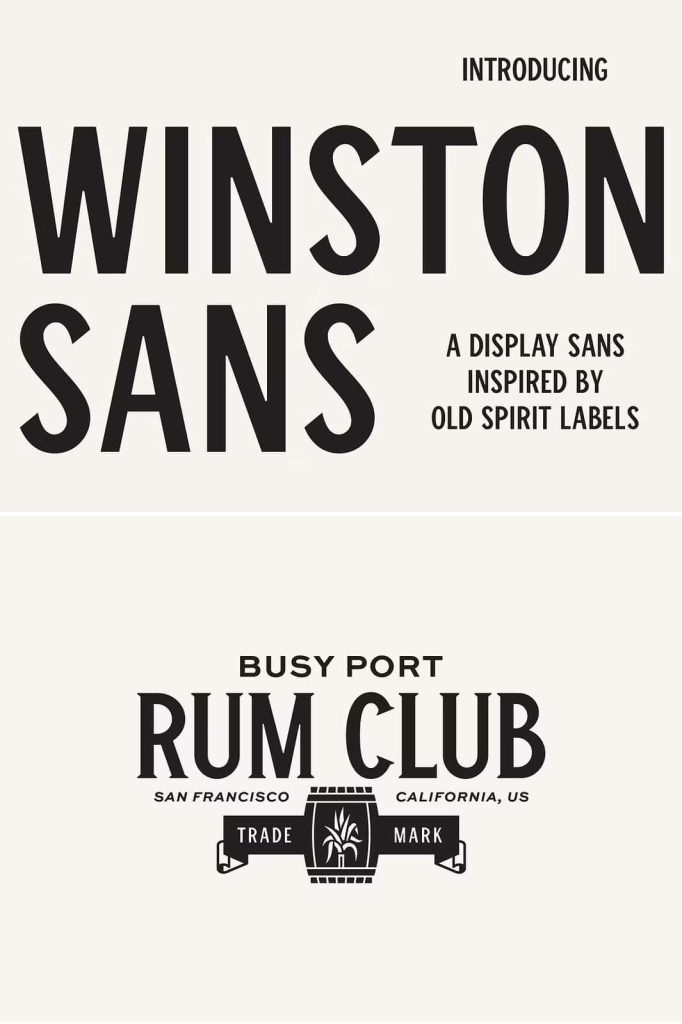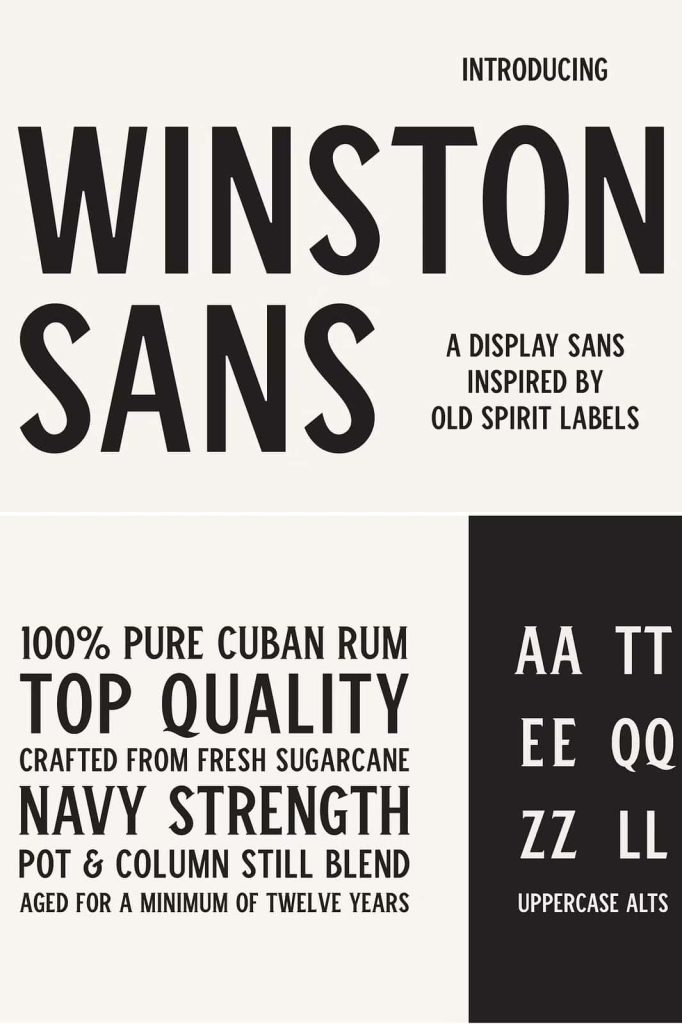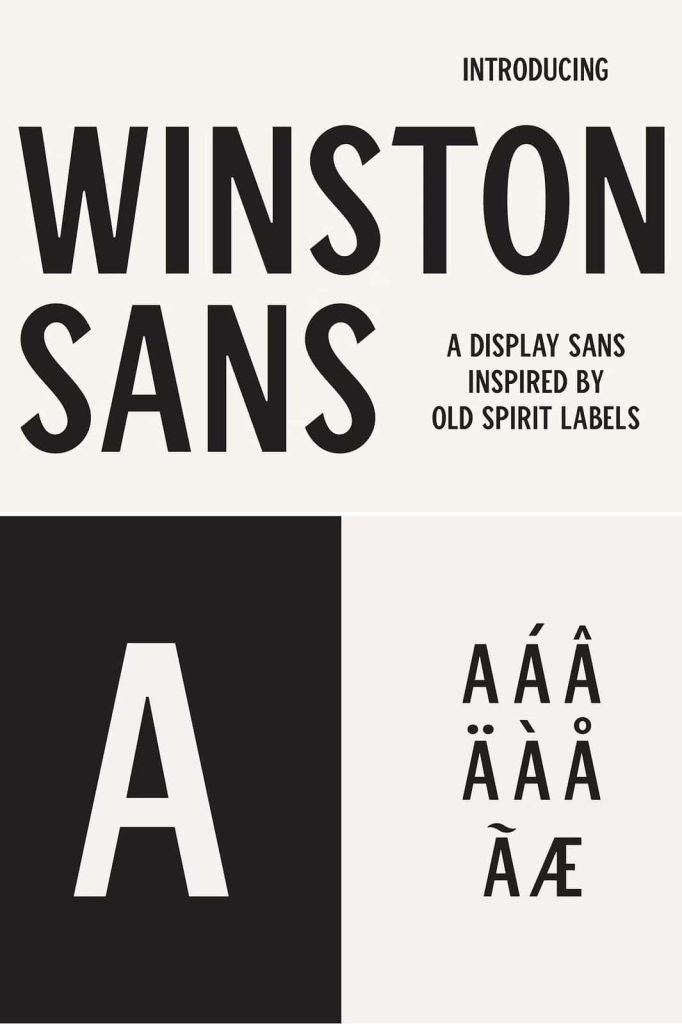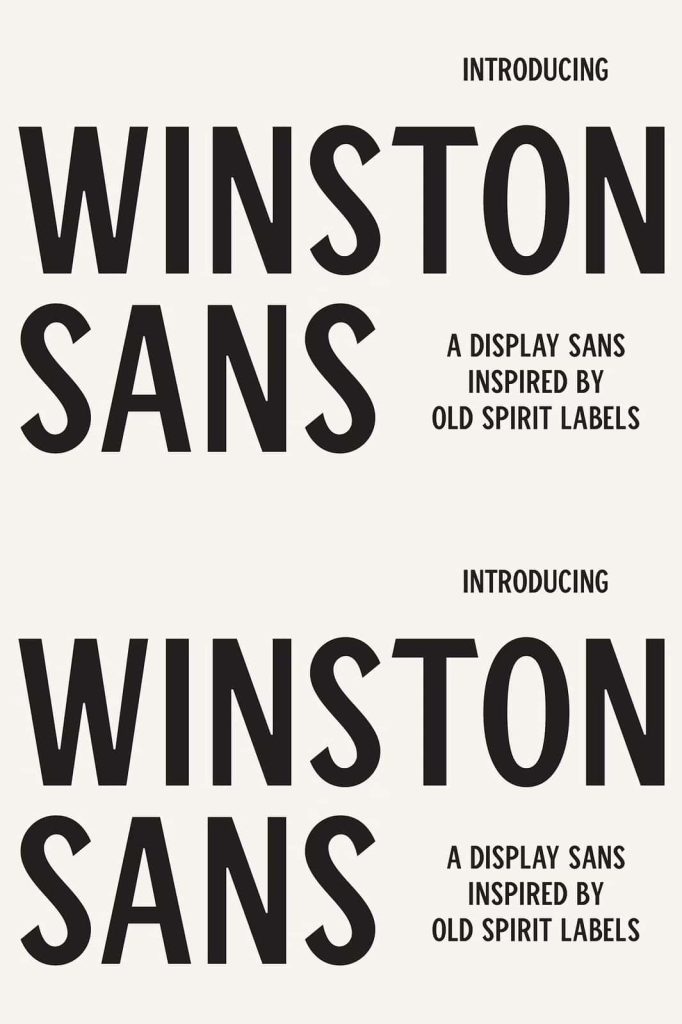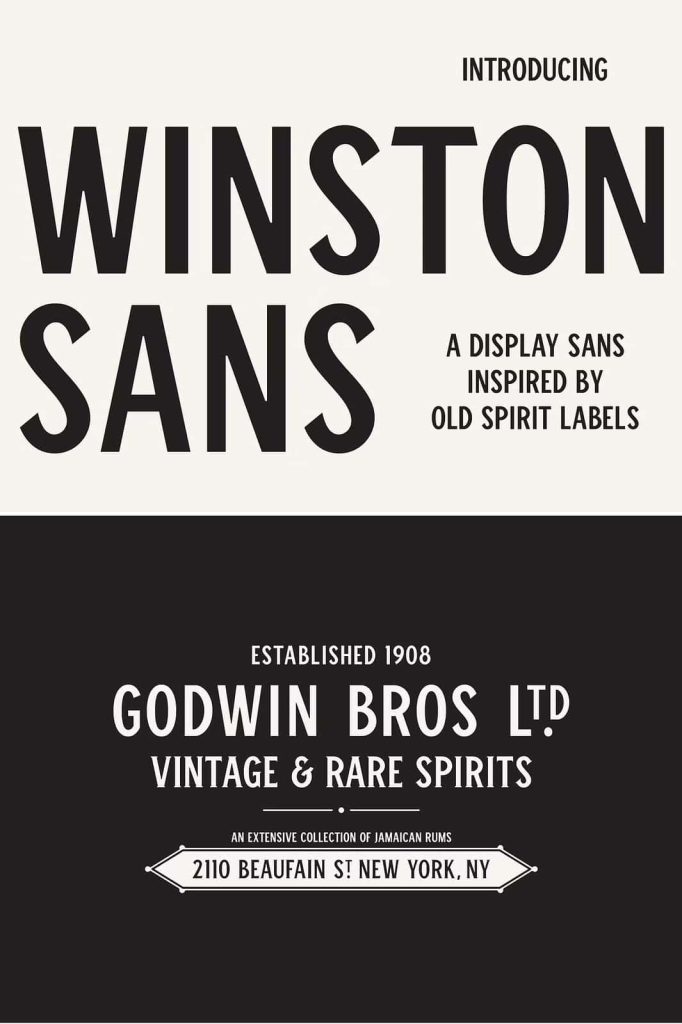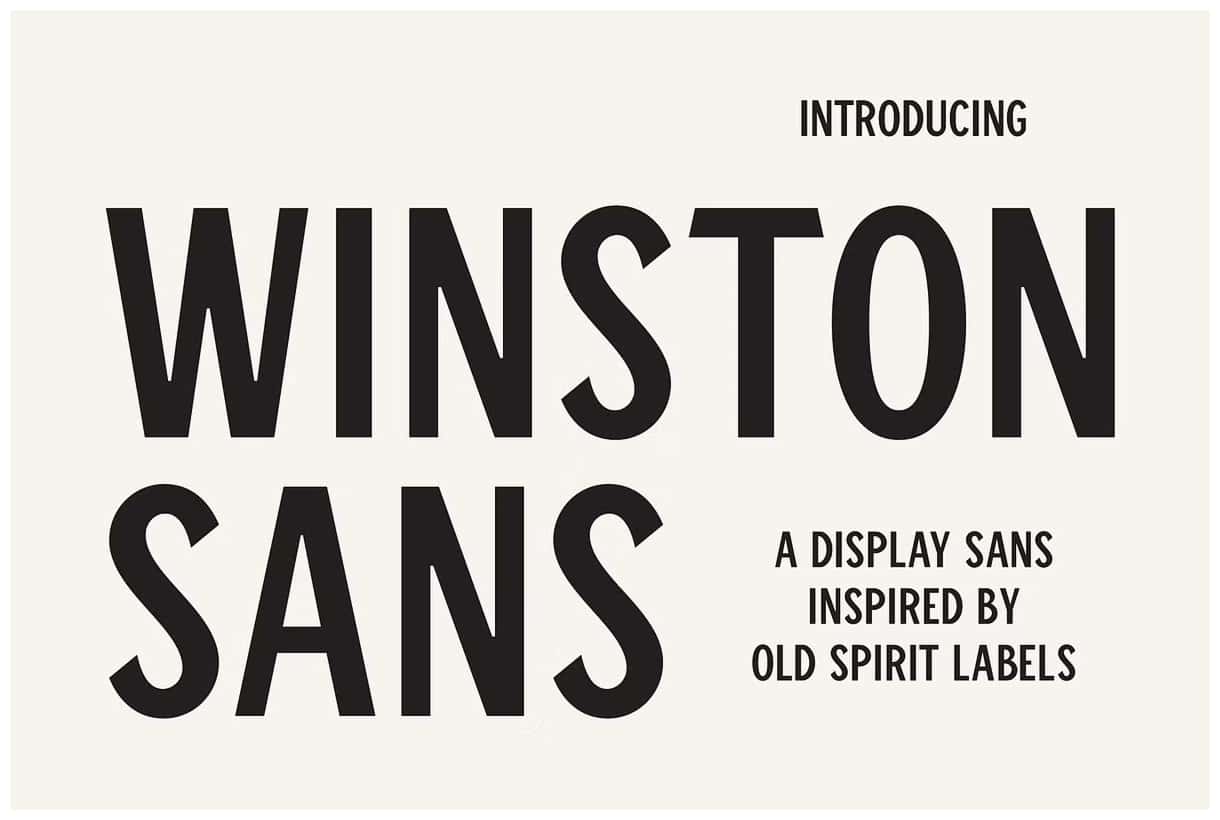
Winston Sans: A Vintage-Inspired Font Family with a Modern Edge
Winston Sans is a distinctive font family inspired by classic spirits labels and heritage packaging design. It blends old-world charm with modern typographic precision, creating a unique balance between nostalgia and contemporary clarity. This thoughtful combination allows Winston Sans to feel timeless while remaining highly relevant for modern creative projects.
Rooted in the visual language of traditional labels, signage, and handcrafted typography, Winston Sans captures the character and confidence of vintage design. At the same time, its clean construction and balanced proportions ensure excellent readability and flexibility across a wide range of applications. The result is a font family that feels authentic, bold, and adaptable.
Inspired by Heritage and Classic Label Design
The design of Winston Sans draws strong inspiration from old spirits labels, where typography played a central role in communicating quality, tradition, and trust. These historical references give the font its distinctive personality while reinforcing its premium feel.
Vintage Roots with Refined Details
Winston Sans reflects the strength and character found in classic labeling and packaging from the past. Its letterforms echo the confidence of heritage brands while avoiding excessive ornamentation. This refined approach allows the font to feel vintage without appearing dated or overly decorative.
A Modern Interpretation of Timeless Style
While inspired by the past, Winston Sans is built for modern design workflows. Its clean lines, consistent spacing, and balanced structure make it easy to use across both print and digital platforms. This modern interpretation ensures the font performs reliably in contemporary branding and design systems.
A Versatile Font for Branding and Visual Identity
Winston Sans excels in brand identity projects where character and clarity are equally important. Its strong presence helps brands establish trust, authenticity, and recognition while maintaining a polished and professional appearance.
Strong Foundations for Brand Identity
Whether used in logos, wordmarks, or supporting brand elements, Winston Sans provides a solid typographic foundation. Its vintage-inspired tone communicates heritage and reliability, making it an excellent choice for brands that want to appear established, confident, and thoughtfully crafted.
Adaptable Across Multiple Brand Touchpoints
Winston Sans works seamlessly across a wide range of brand applications, including business cards, labels, signage, websites, and promotional materials. Its flexibility allows designers to maintain visual consistency while adapting the font to different contexts and scales.
Perfect for Packaging and Product Design
Packaging design is one of the strongest use cases for Winston Sans. Its label-inspired roots make it especially effective for products that rely on storytelling, heritage, and visual authenticity.
Ideal for Labels and Packaging Layouts
Winston Sans performs exceptionally well on packaging, where typography must be both expressive and legible. Its clean forms ensure readability at small sizes, while its character adds visual interest to product labels, boxes, and tags.
Enhancing Premium and Craft Products
The vintage-modern balance of Winston Sans makes it a natural fit for craft beverages, specialty foods, lifestyle goods, and boutique products. It helps elevate packaging designs by reinforcing a sense of quality, craftsmanship, and attention to detail.
Impactful Typography for Posters and Editorial Design
Beyond branding and packaging, Winston Sans delivers strong visual impact in poster design and editorial layouts. Its confident presence makes it ideal for headlines, titles, and display text.
Bold Headlines with Character
When used in posters and promotional materials, Winston Sans commands attention without overwhelming the layout. Its balanced proportions and vintage influence give headlines a memorable and authoritative voice.
Supporting Editorial and Print Projects
In editorial design, Winston Sans adds personality to layouts while maintaining readability. It works well for magazine headers, pull quotes, and section titles, providing structure and visual rhythm throughout the design.
Why Choose Winston Sans for Your Font Collection
Winston Sans stands out as a font family that successfully bridges the gap between vintage inspiration and modern usability. Its roots in classic spirits labels give it authenticity and charm, while its refined execution ensures versatility and reliability.
If you are looking for a font that delivers character, clarity, and timeless appeal, Winston Sans is a powerful choice. It supports branding, packaging, poster design, and many other creative projects, helping designers tell compelling visual stories with confidence and style.